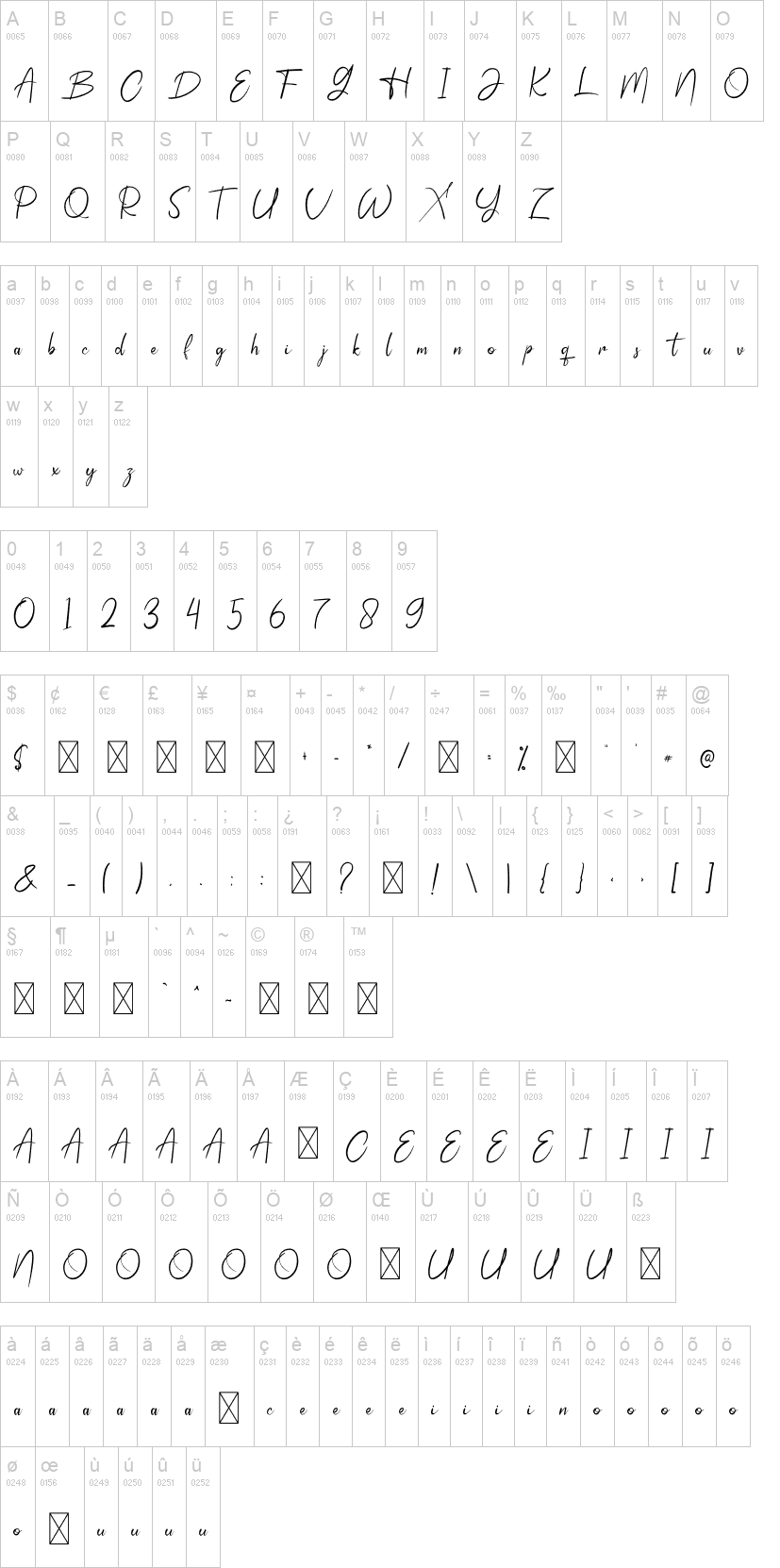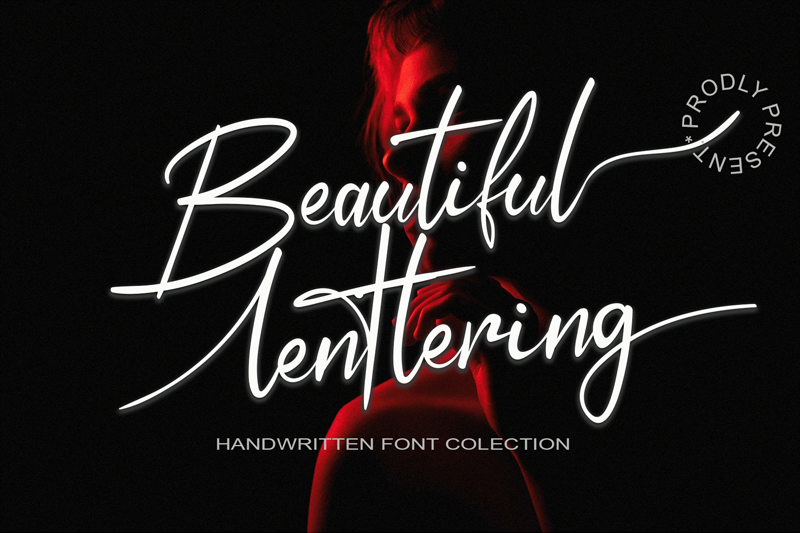
Note of the authorBeautiful Lenttering handwritten Font is a great. It maintains its classy calligraphic influences while feeling contemporary and fresh. This versatility will appeal to a wide range of crafty ideas, from letterheads and titles to stationery.